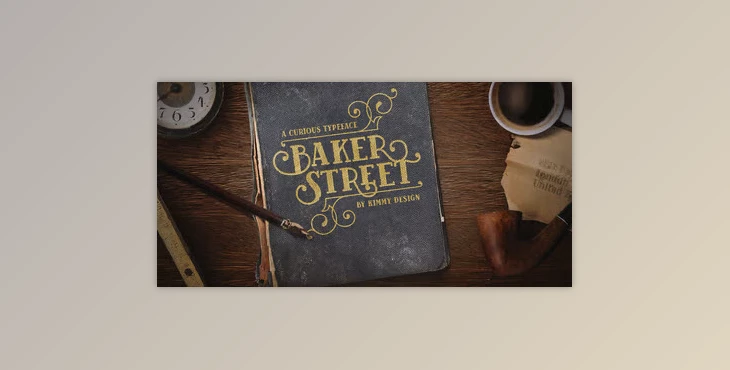
My Fonts - Baker Street - A Recent Trip to London:
The Baker Street typeface was inspired by a colorful trip to London and its reflection upon the cool typography of some traditional English pubs. This font is a fully developed family of regular, italic, inline, and rustic (textured) versions, with an interesting array of Opentype features. Among those OpenType features are hundreds of discretionary ligatures, letter combinations that connect using various flourishes to create a visually stunning appeal. Baker Street includes no exclusions for what pairs will work, from two uppercase letters to uppercase-lowercase pairs, certain numbers, or even paired numbers (only a few flourishes exist for 1-3), but swashes on many letters go high and low enough, above and below, that contextually swashed letters at the beginning or ends of words add further pizazz.
For those interested in various stylistic possibilities beyond its generally aesthetically satisfying appeal, Baker Street includes Stylistic Alternatives and Titling Alternatives for certain capital variations; Tabular Lining and Oldstyle Figures grant numerical opportunity to whichever version one prefers. Finally, it consists of two sets of ornaments that match the font's style. Baker Street allows users to create their own!